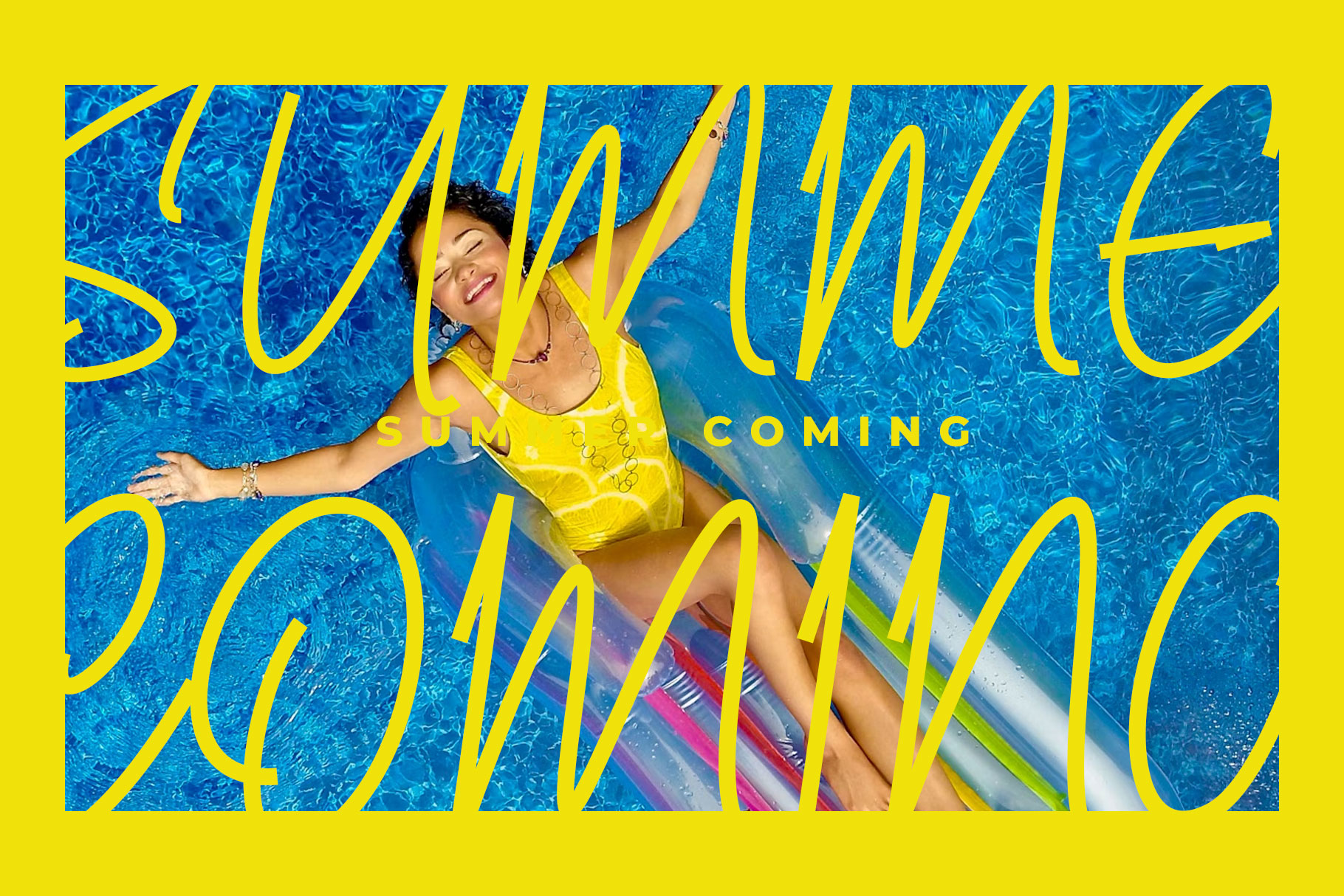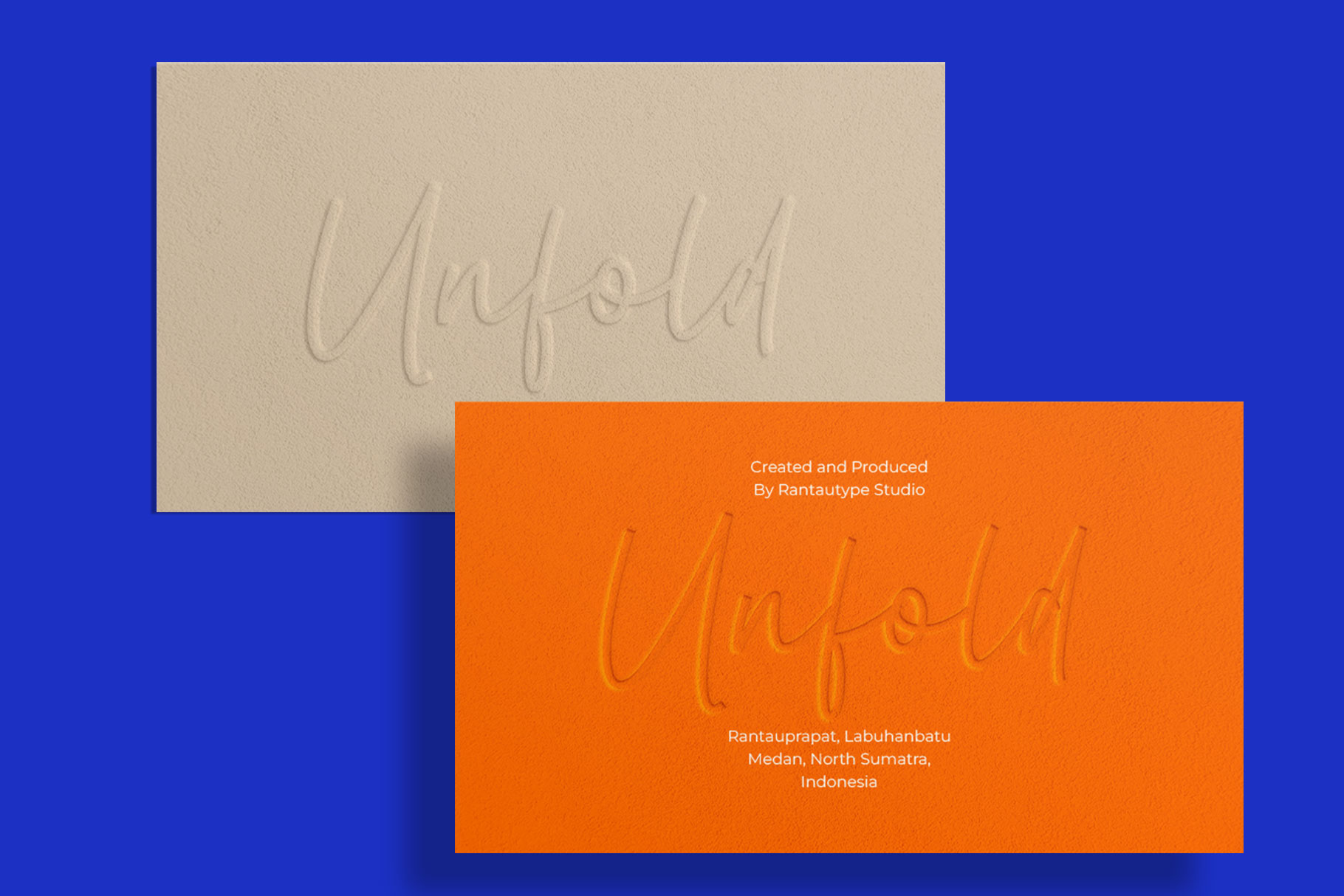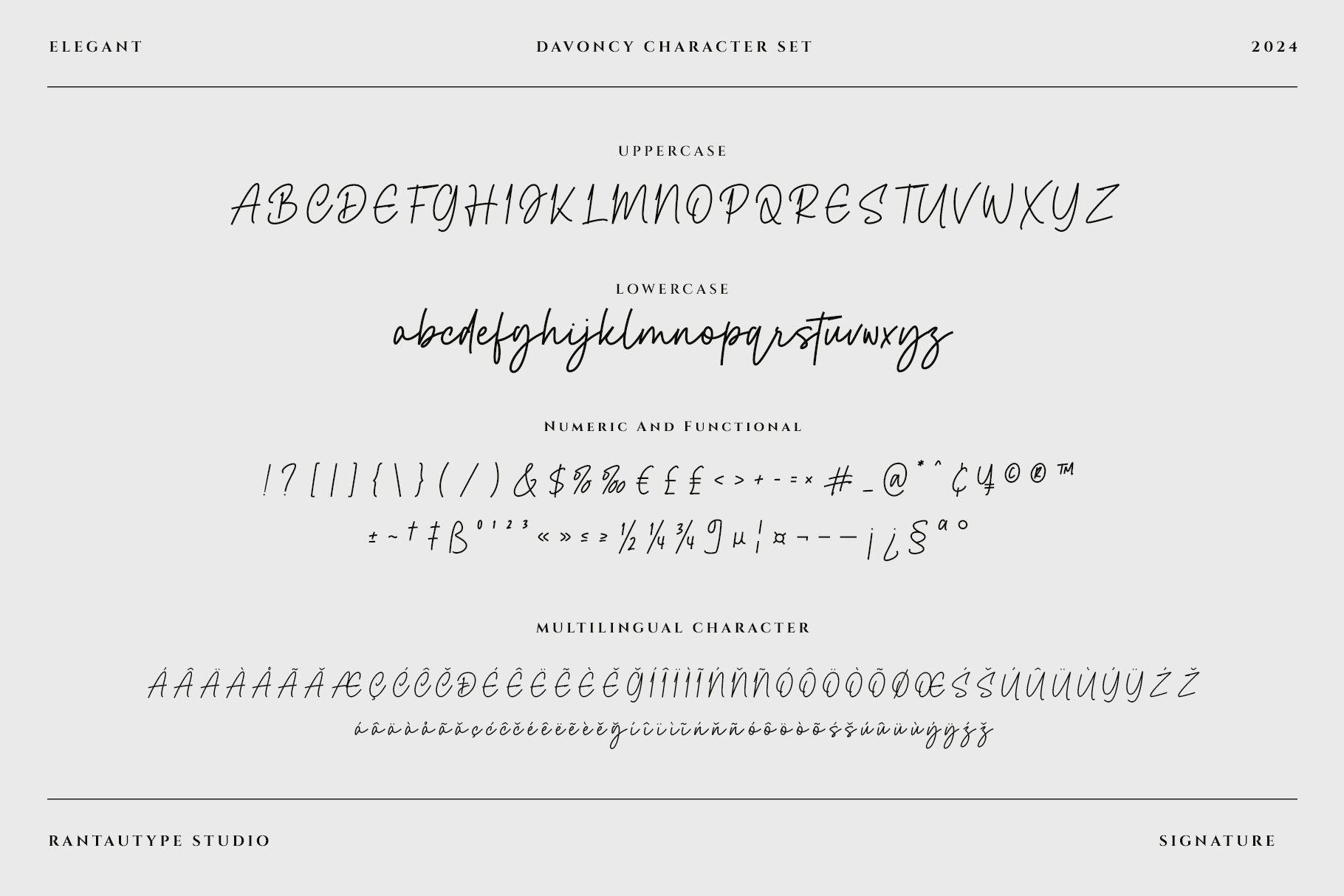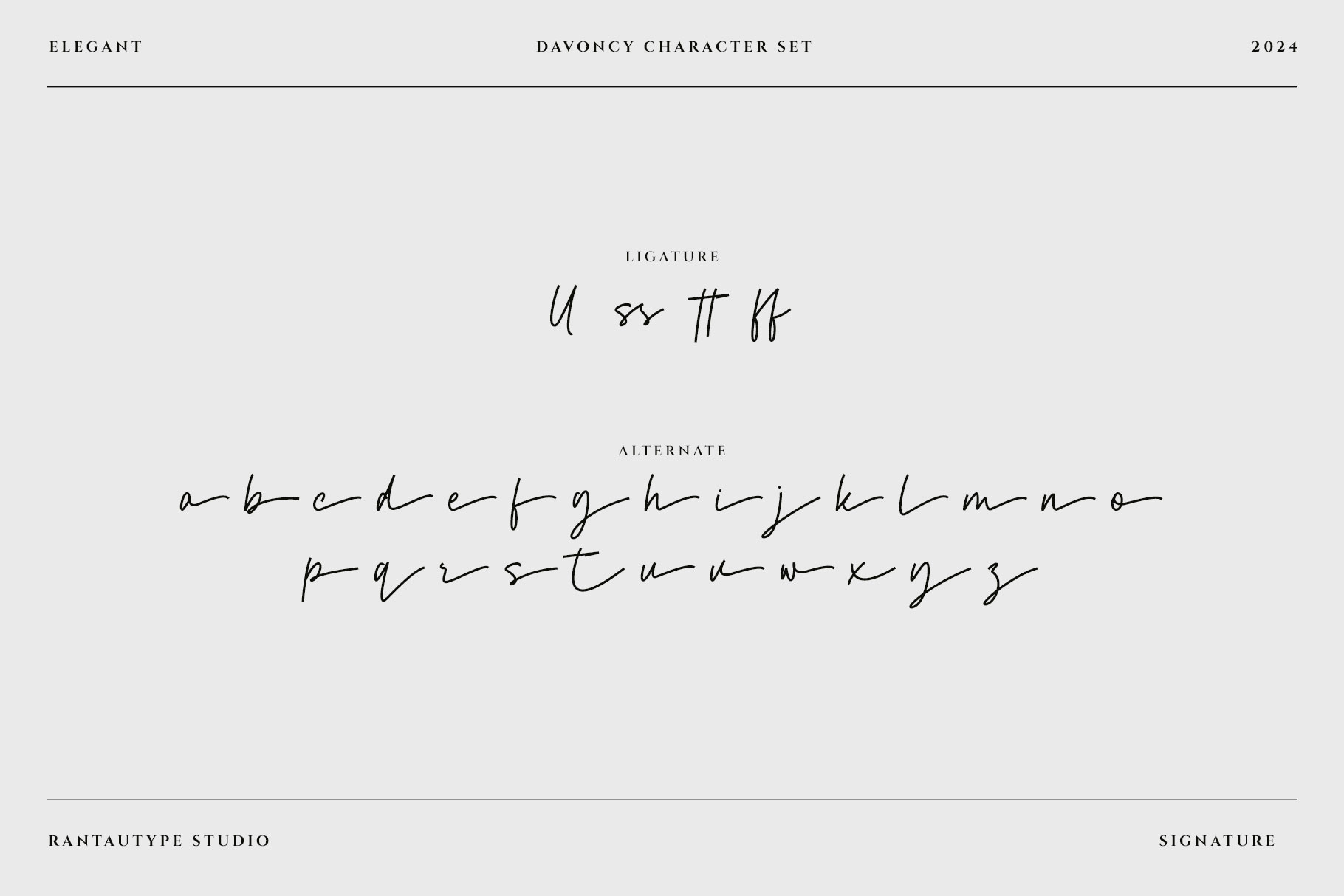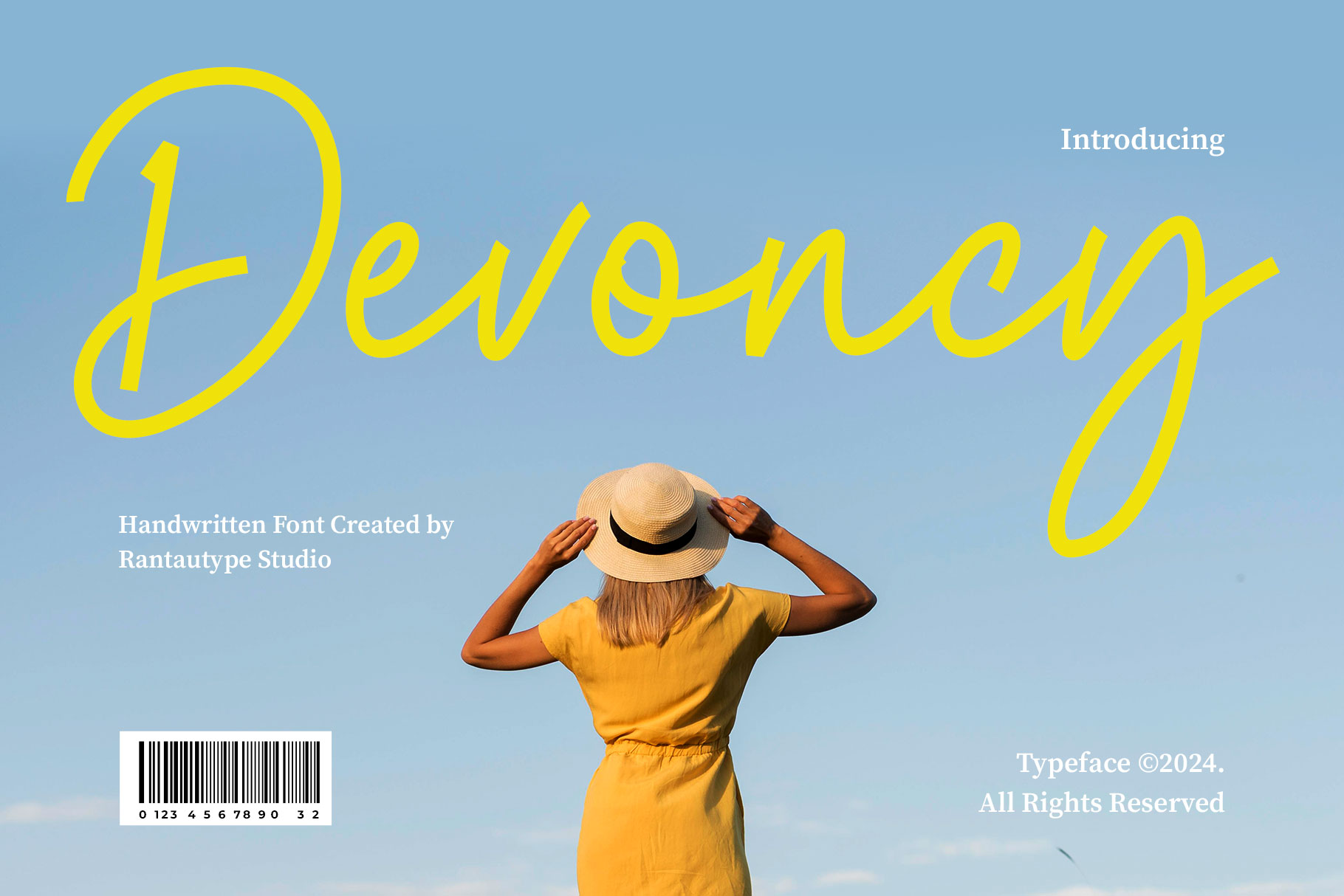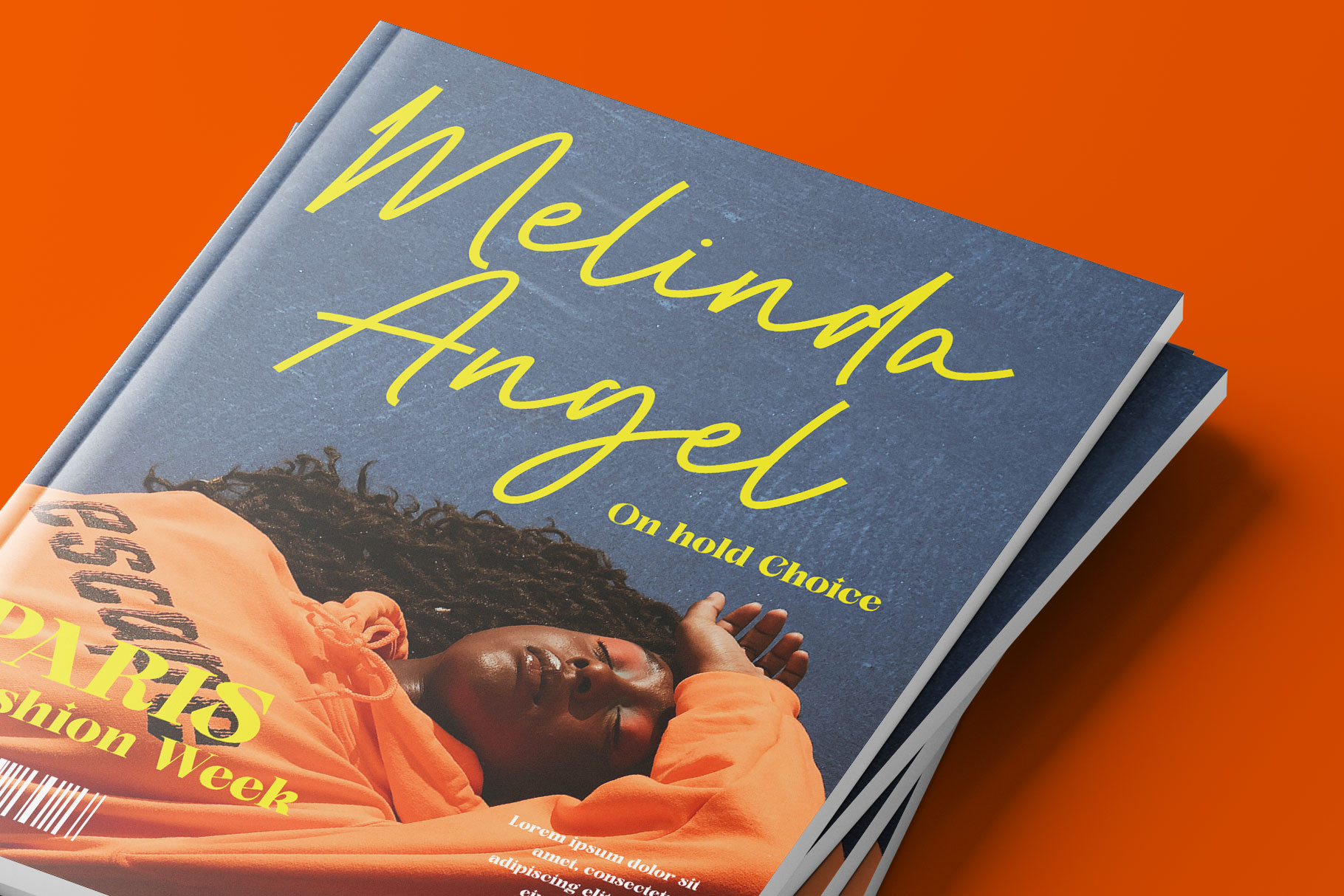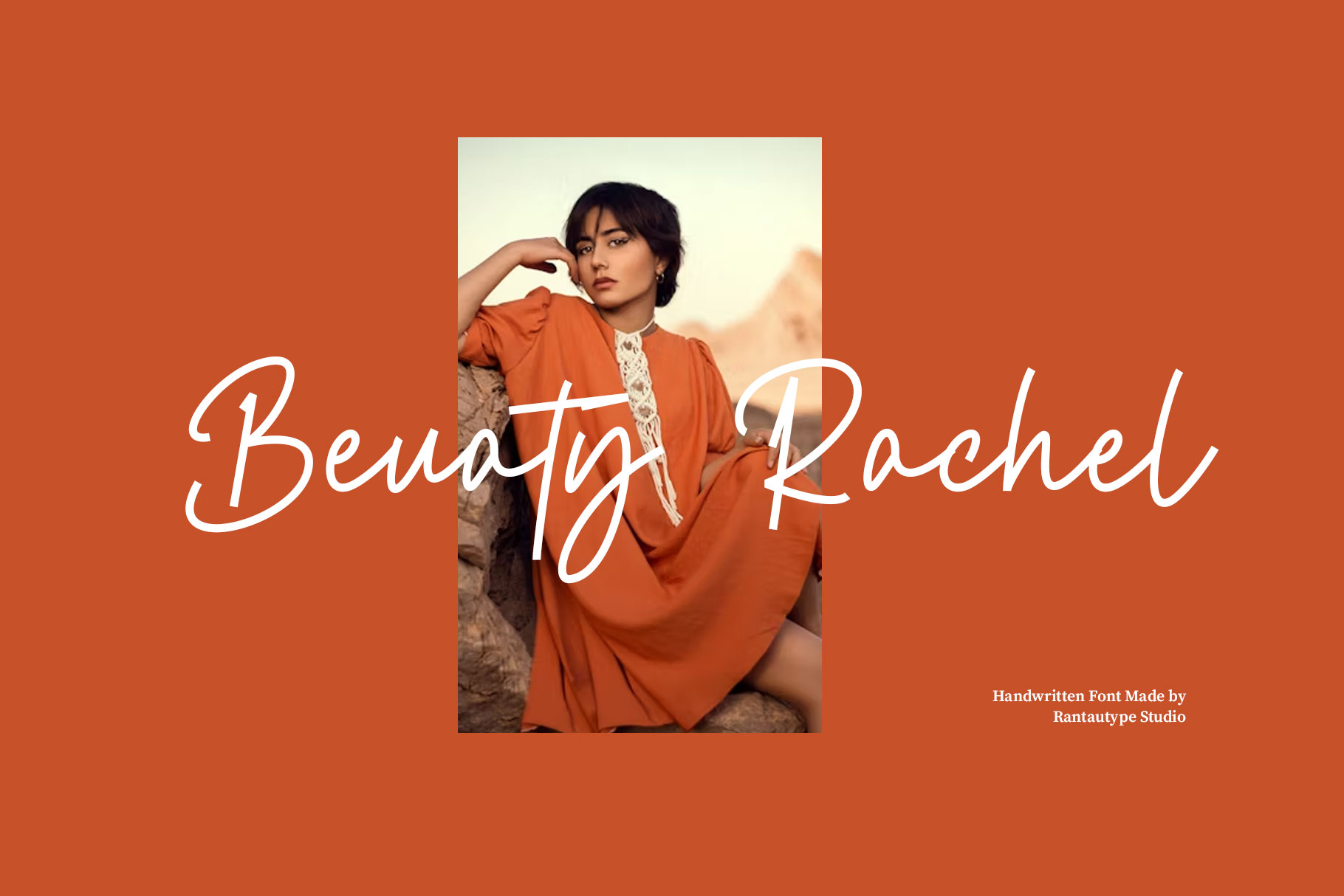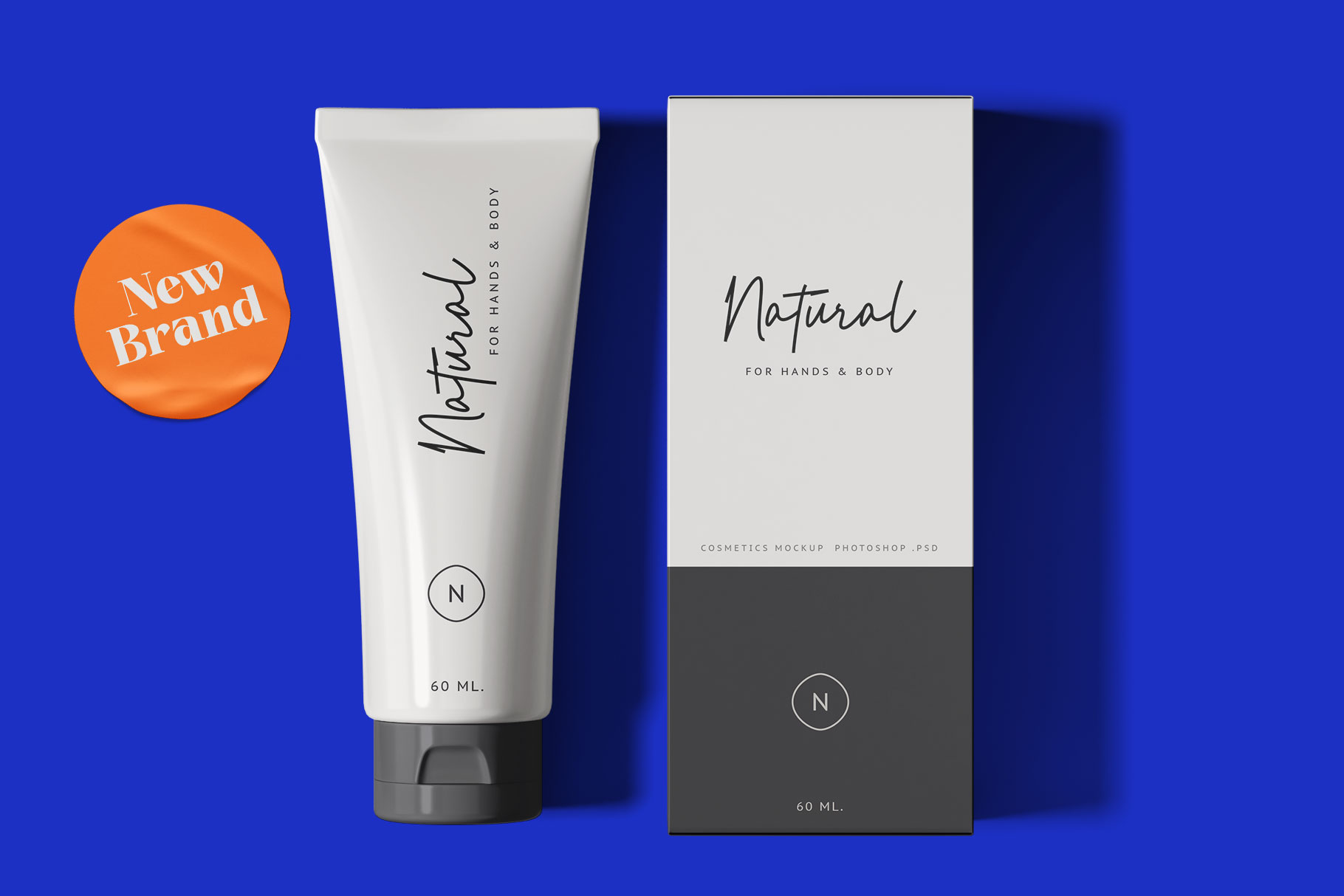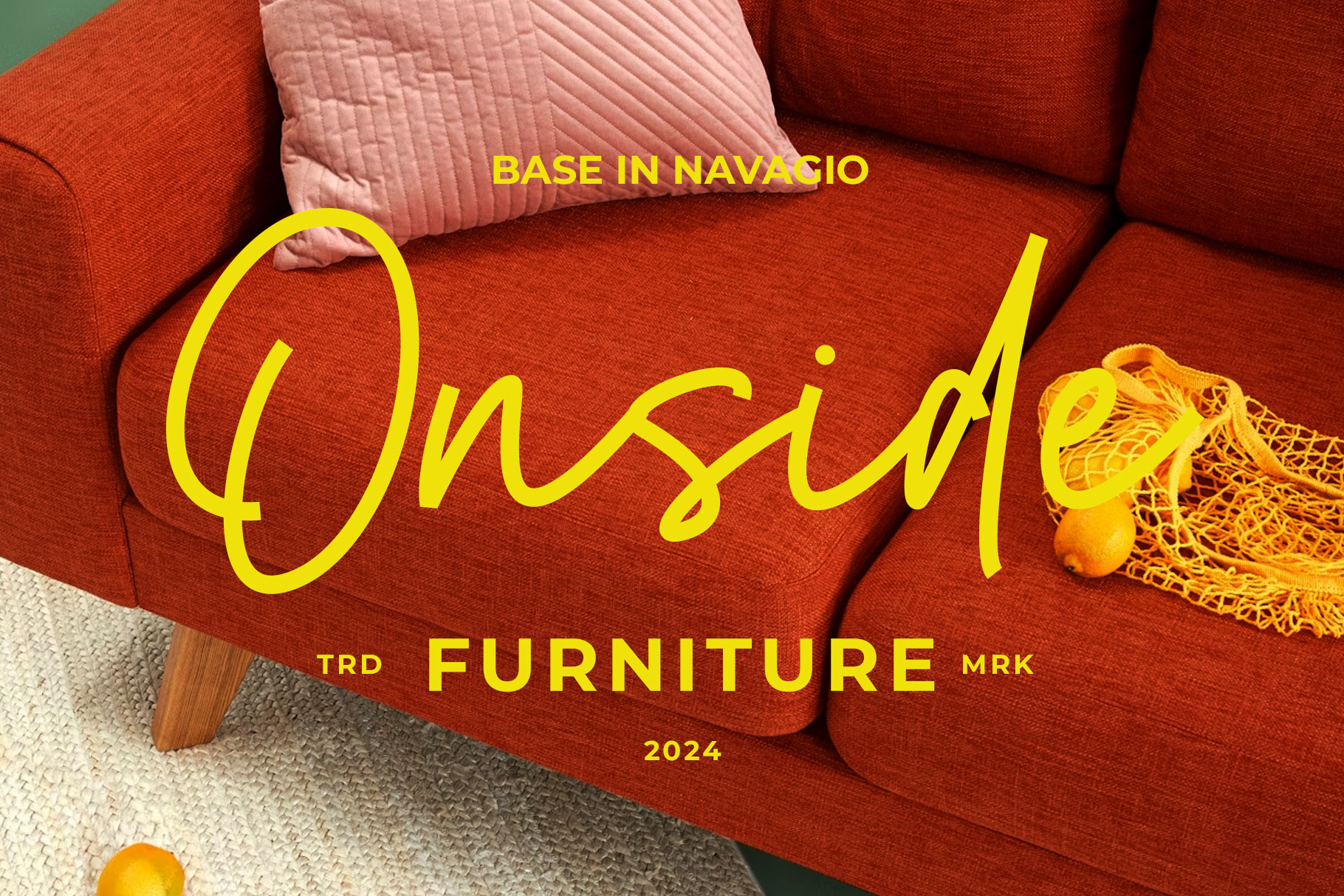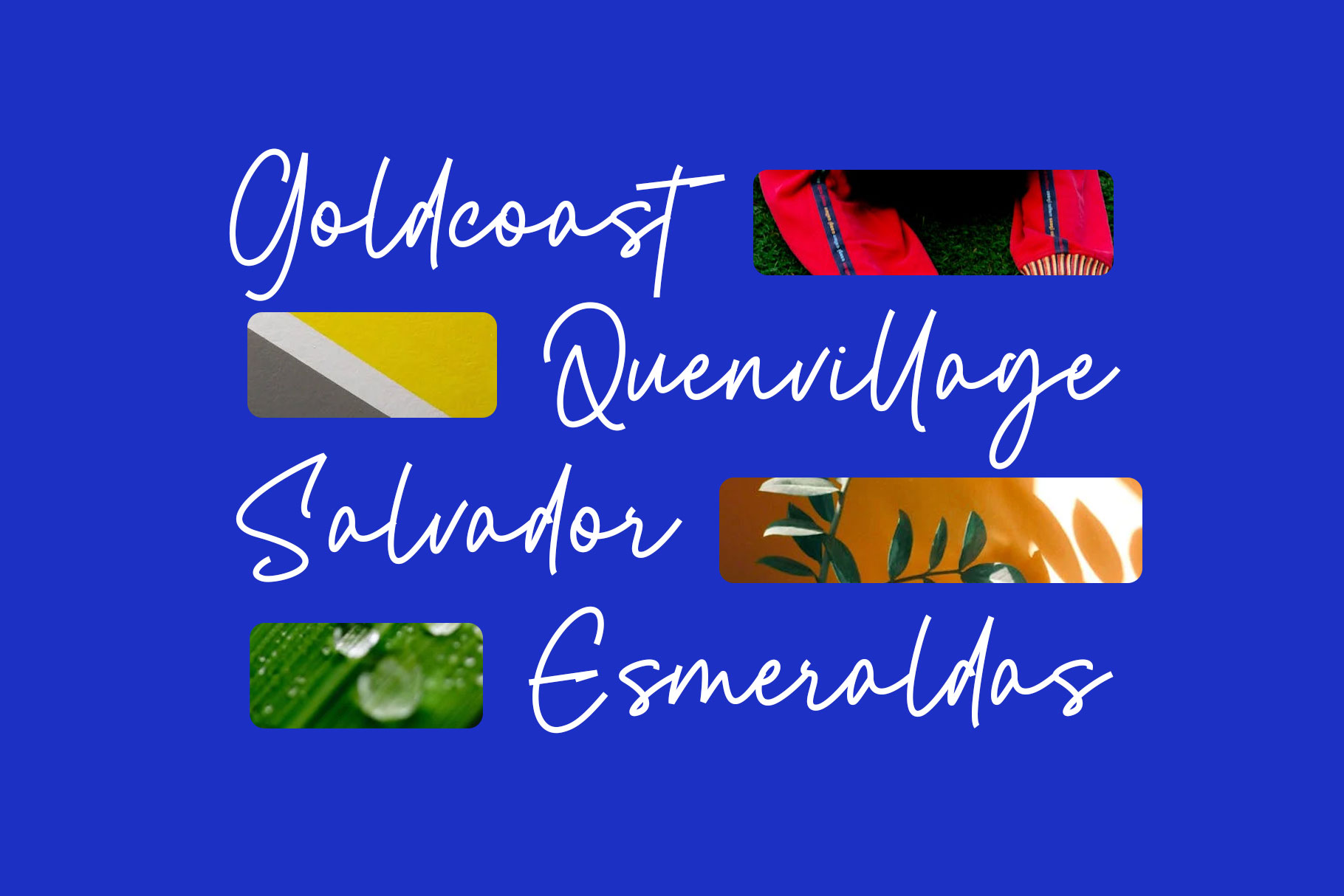
Devoncy Handwritten Font
Devoncy is handwritten font with a stiff and strong tip. Devoncy come with contrast style to bring a sophisticated design project. Two word suitable for this font Modern and strong.
Devoncy is a beautiful choice for any creative endeavor, great choice for watermark on photography, branding, wedding event, signature or signature logo design, quotes, album cover, magazine, business card and many other design project with handwriten taste.